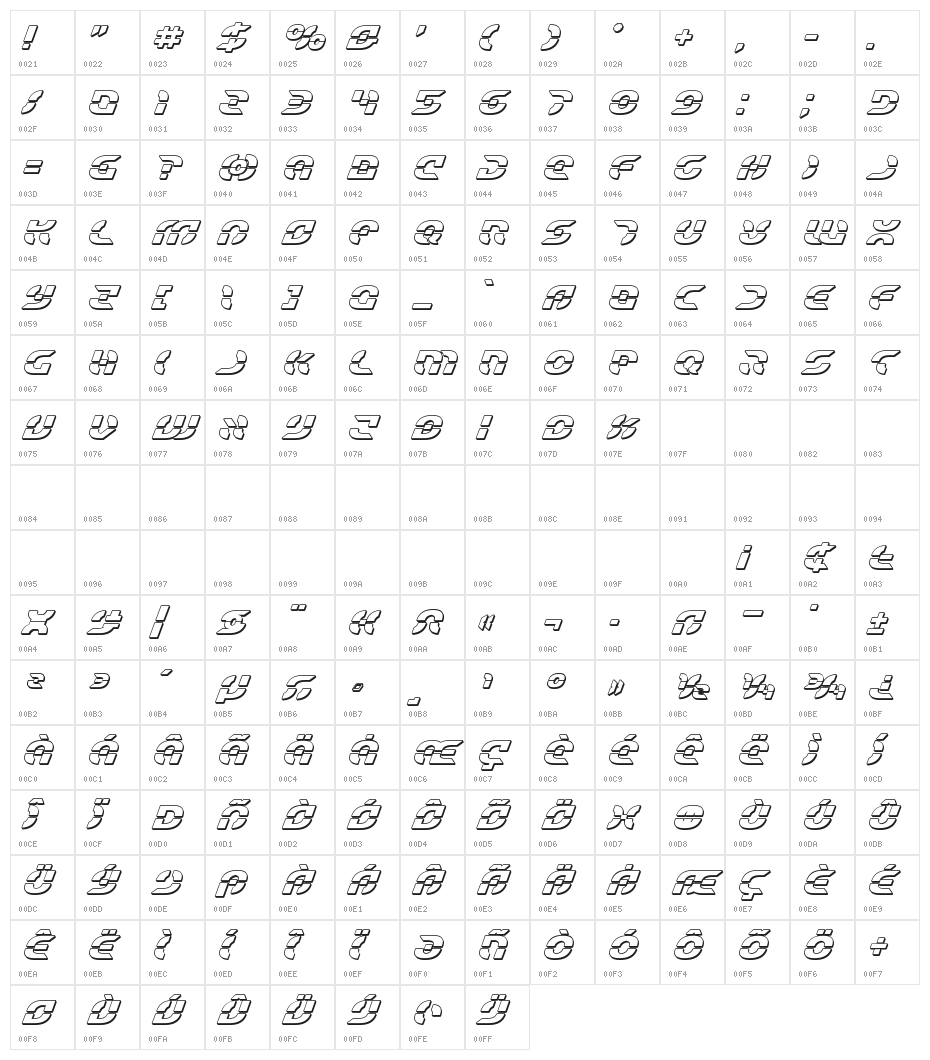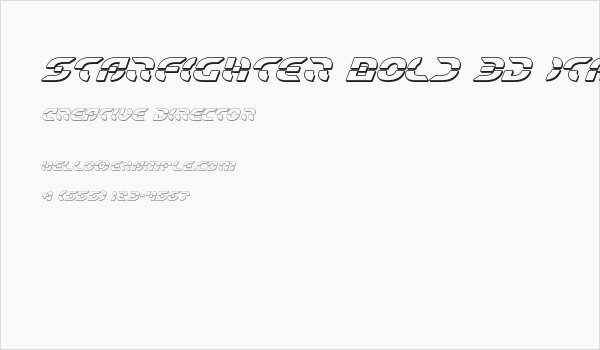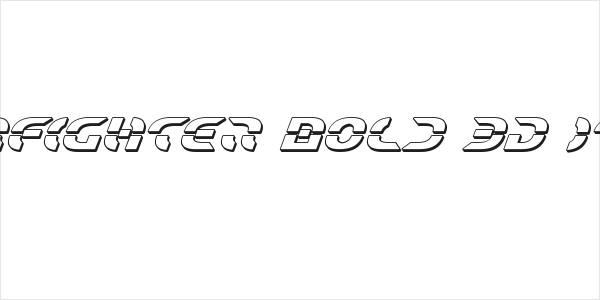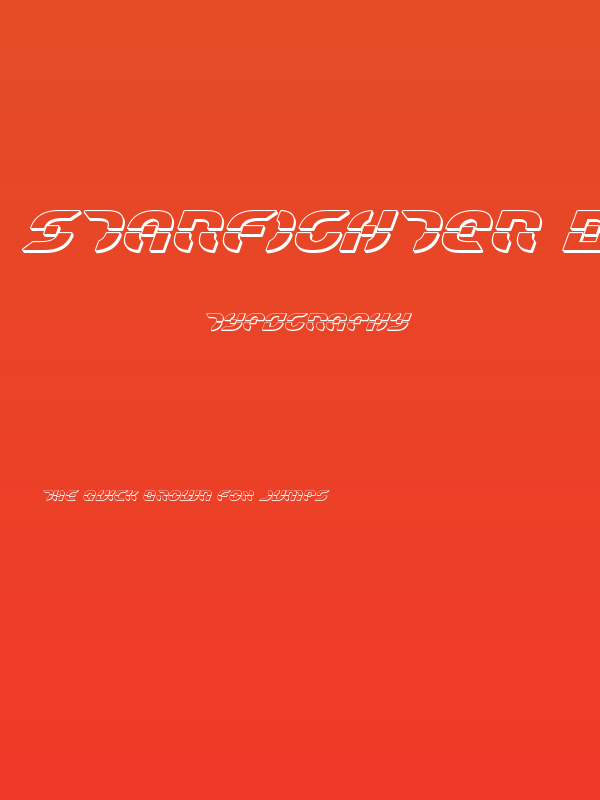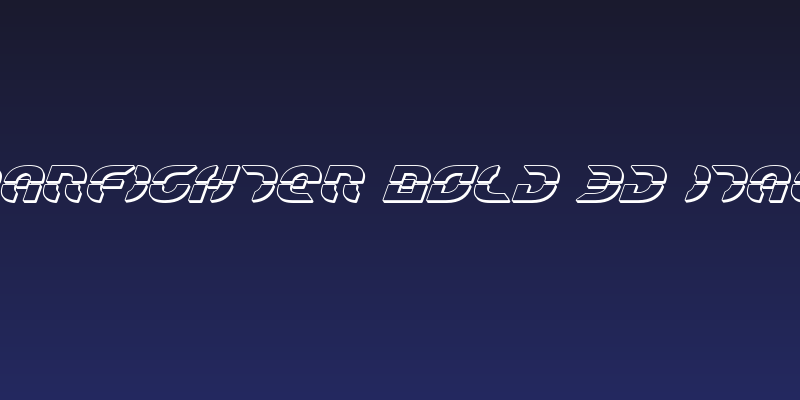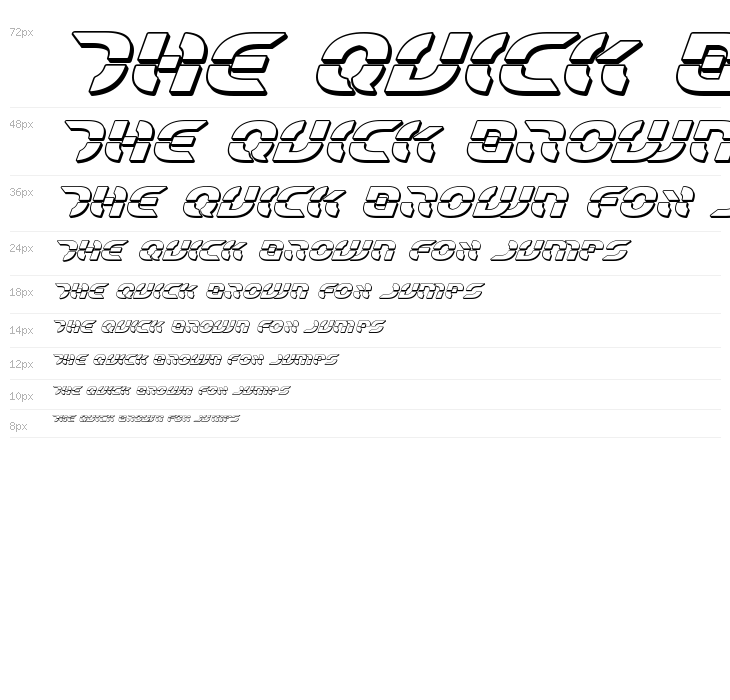
Starfighter Bold 3D Italic Font
Starfighter Bold 3D Italic Description
This font features a bold and dynamic 3D italic style, characterized by its futuristic and angular design. The letters are outlined with a double line effect, giving them a three-dimensional appearance. The geometric shapes and sharp edges create a sense of movement and energy, making it ideal for projects that require a modern and tech-inspired look. The uppercase and lowercase letters maintain a consistent style, while the numbers and special characters complement the overall aesthetic. The font's unique structure and bold presence make it stand out, suitable for eye-catching designs.
| Proposed Projects | Ideal for sci-fi themed posters, video game titles, tech branding, and futuristic event flyers. |